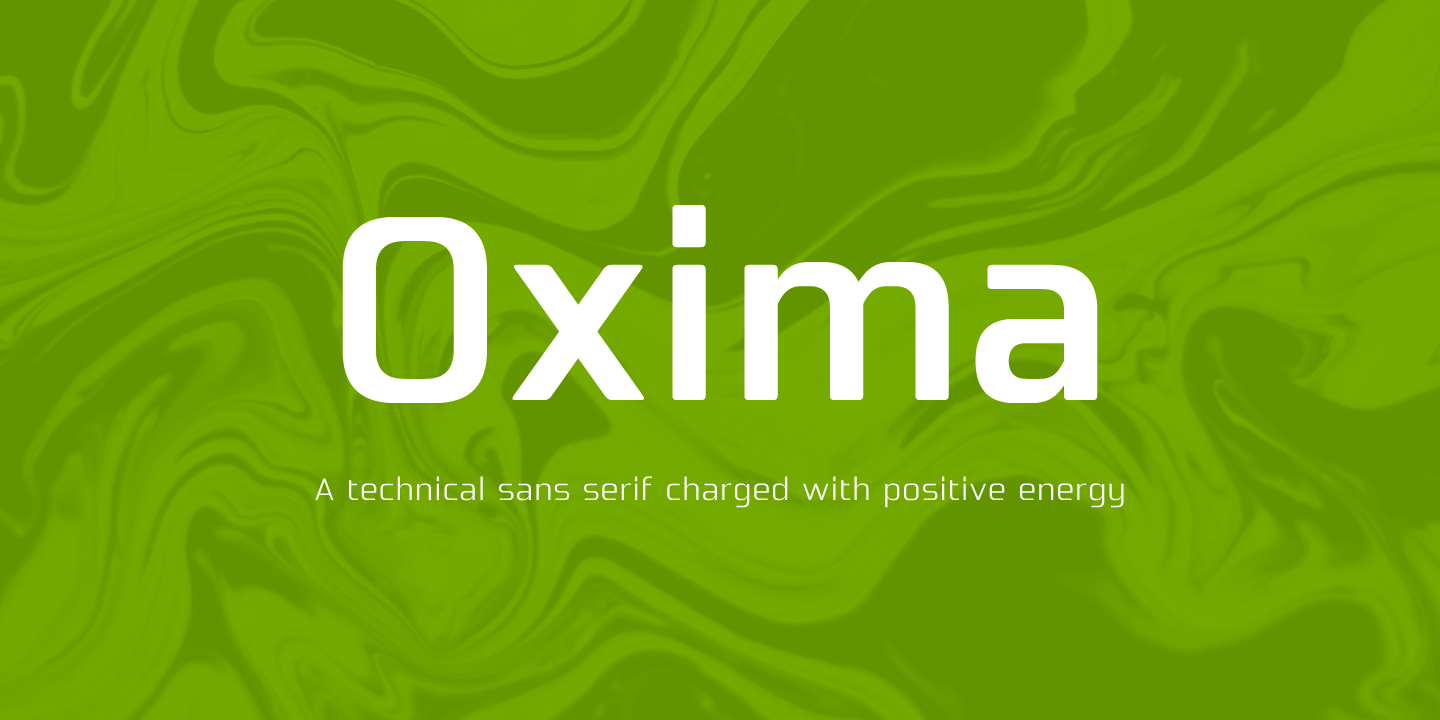
The Oxima Font is incredibly versatile and shines in a wide array of applications. Its clean lines and modern aesthetic make it perfect for branding and logo design, giving businesses a fresh and sophisticated identity. It's also an excellent choice for website headers and body text, ensuring readability and a sleek user experience. Furthermore, Oxima Font excels in print media, from brochures and magazines to posters and packaging, where its distinct character can truly make an impact. Consider it for social media graphics, app interfaces, and even editorial design—anywhere you need a contemporary and professional typographic presence.
What makes Oxima Font so exciting is its harmonious blend of classic elegance and contemporary flair. It strikes a perfect balance between approachability and sophistication, making it incredibly adaptable without sacrificing its unique personality. Its legibility across various sizes, coupled with its stylish letterforms, ensures that your message is not only seen but also felt. The subtle nuances in its design add a touch of refinement that elevates any project, providing a fresh take on modern typography. It’s a font that feels both familiar and refreshingly new, inviting engagement and leaving a lasting impression.
The Oxima Font family typically includes a comprehensive range of weights, from Light and Regular to Medium, SemiBold, and Bold, often with corresponding Italic styles. Some extended families might even offer Thin, ExtraBold, or Black weights, providing even greater flexibility for designers. This extensive range allows for robust typographic hierarchies and visual interest within a single project, ensuring consistency and seamless integration across different design elements.